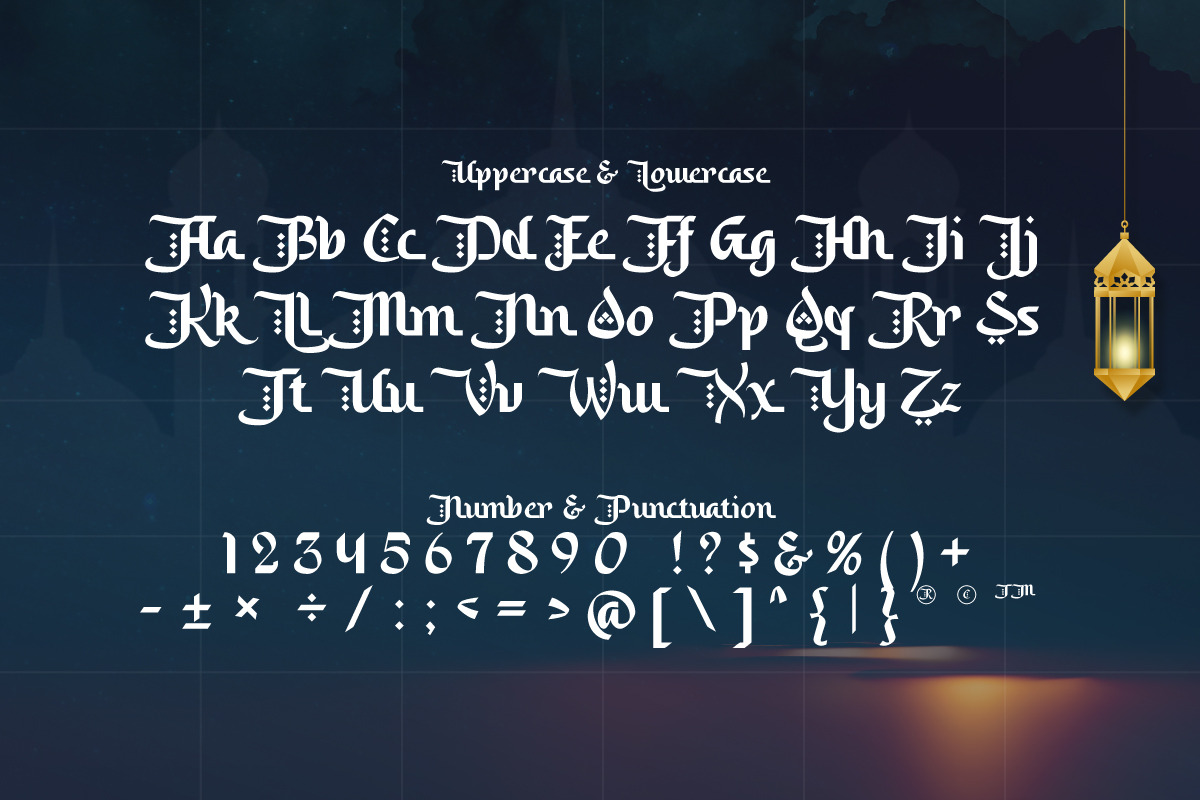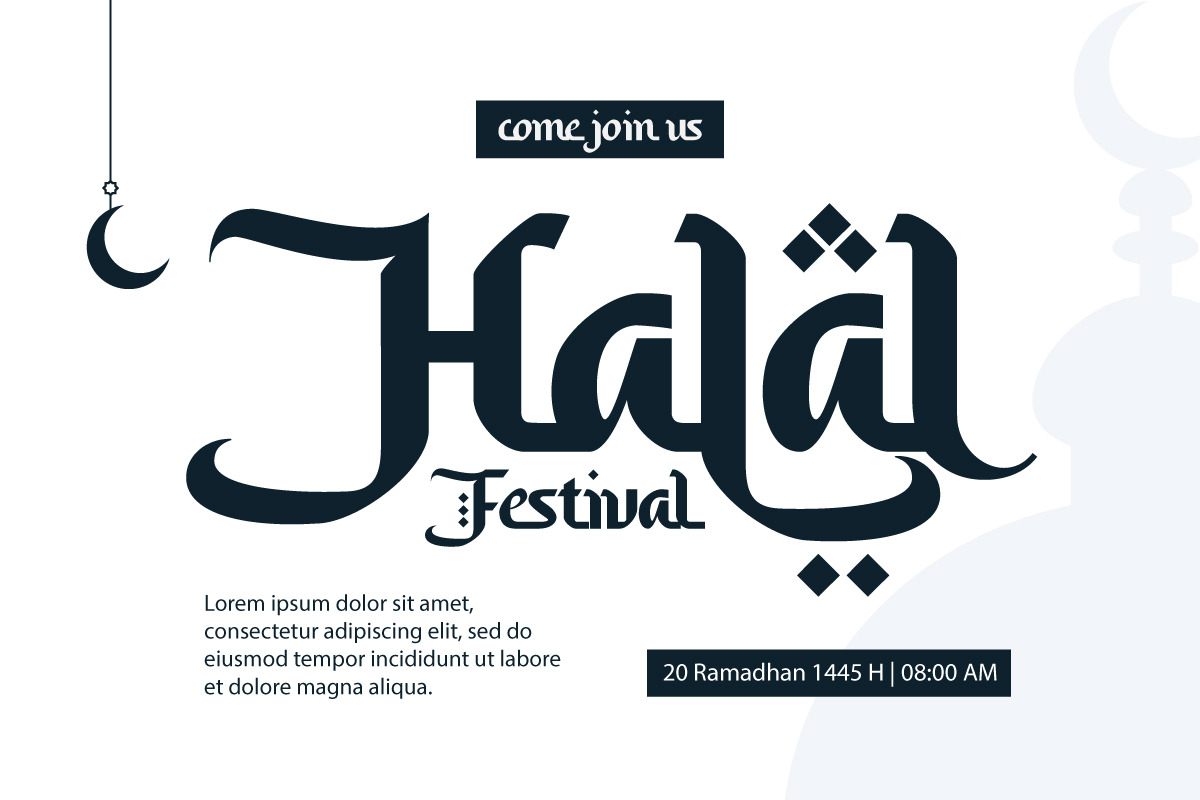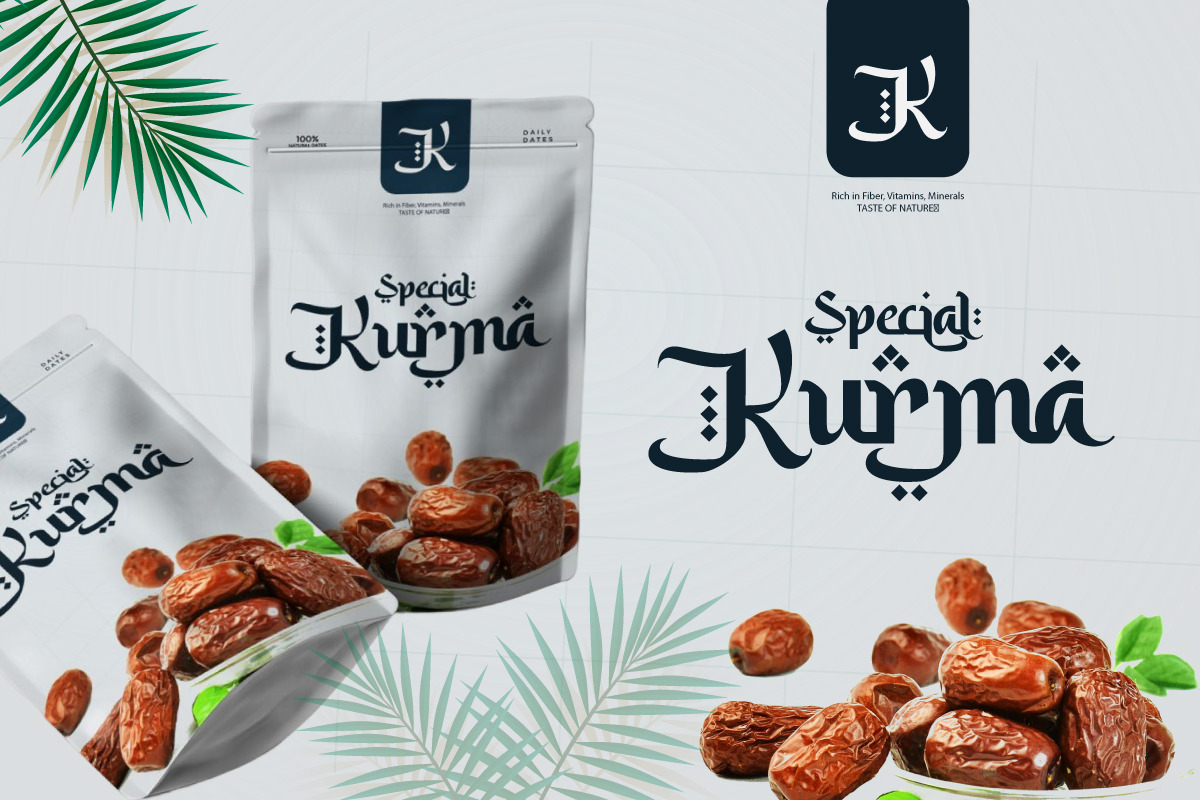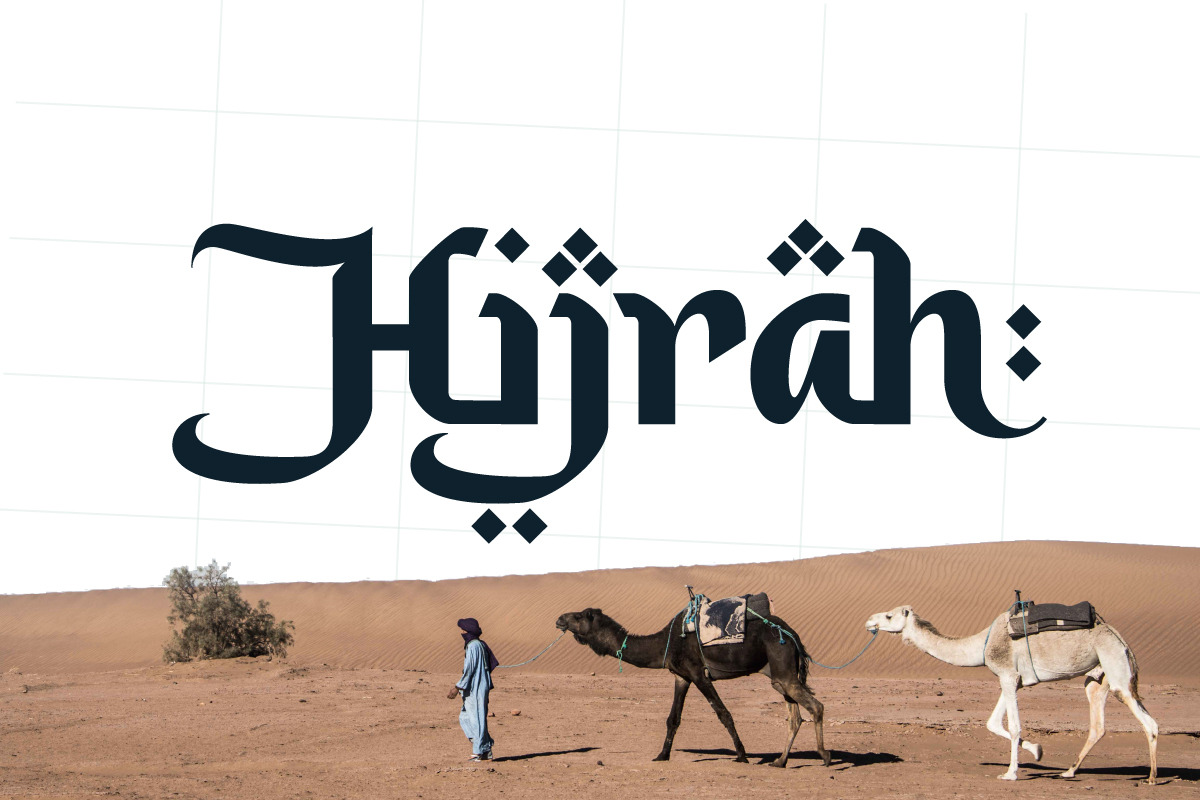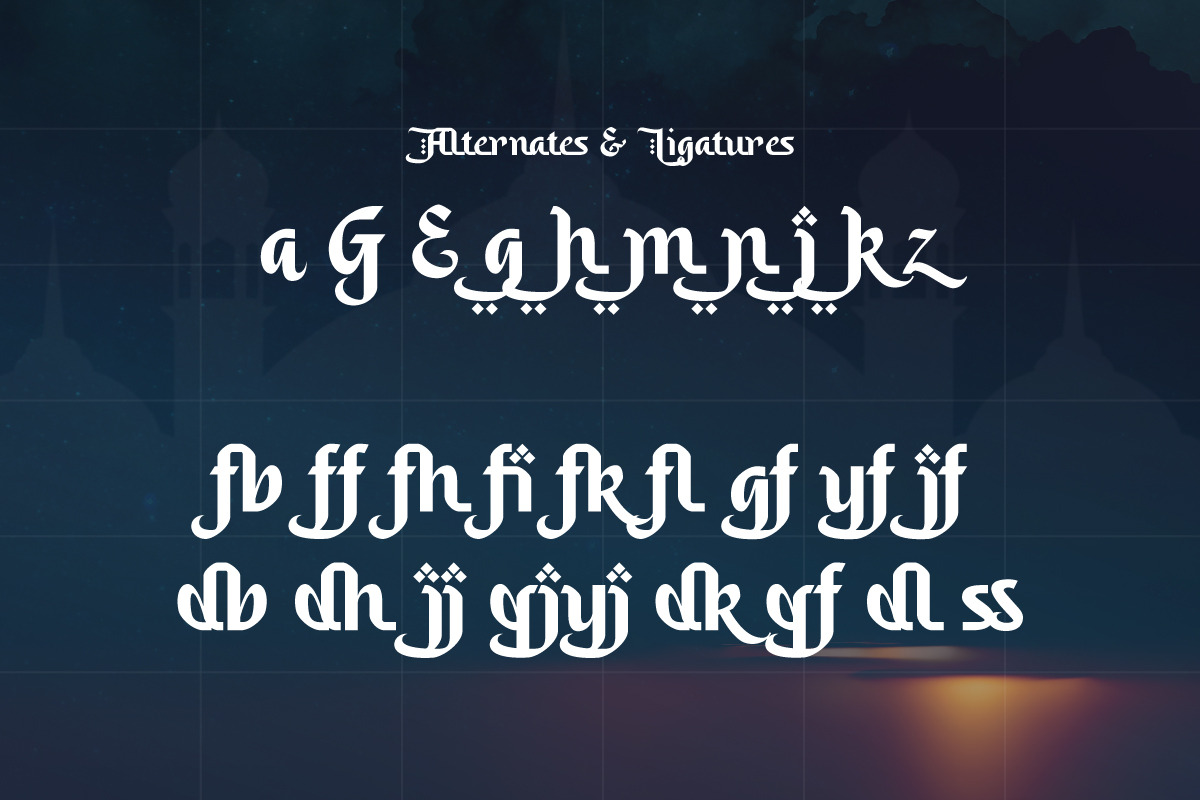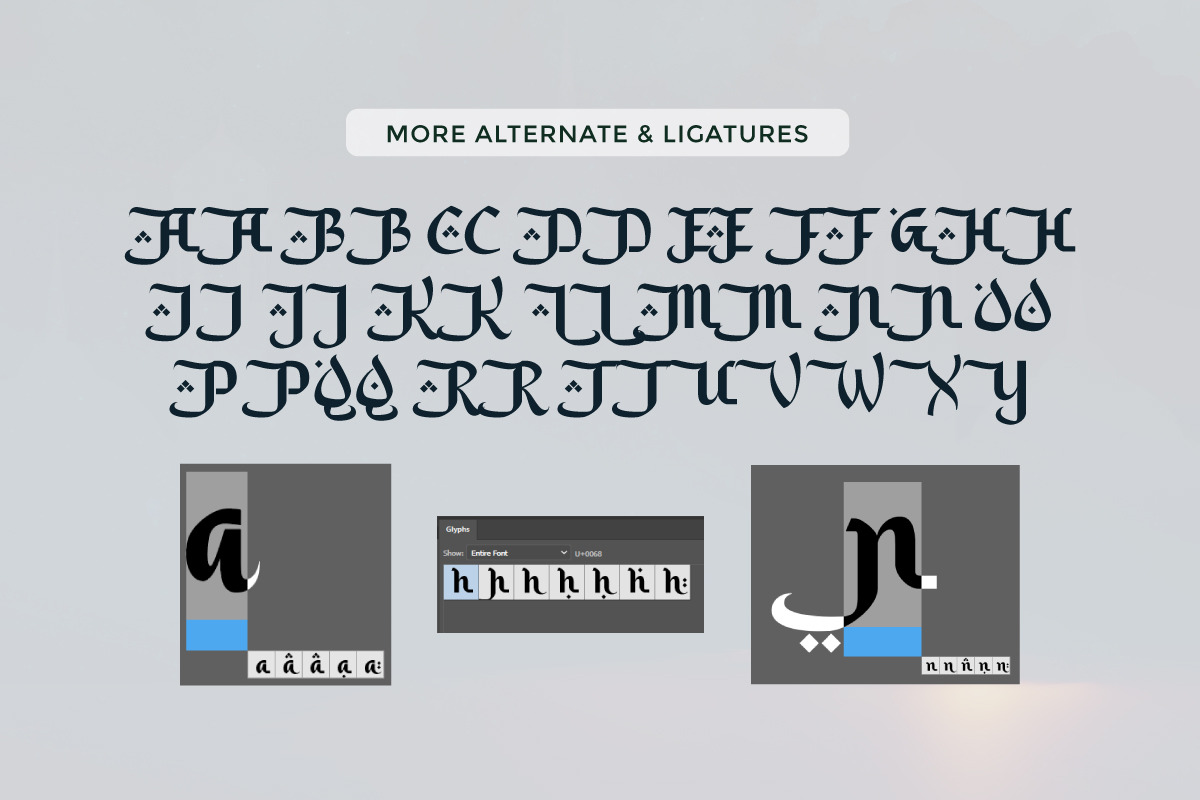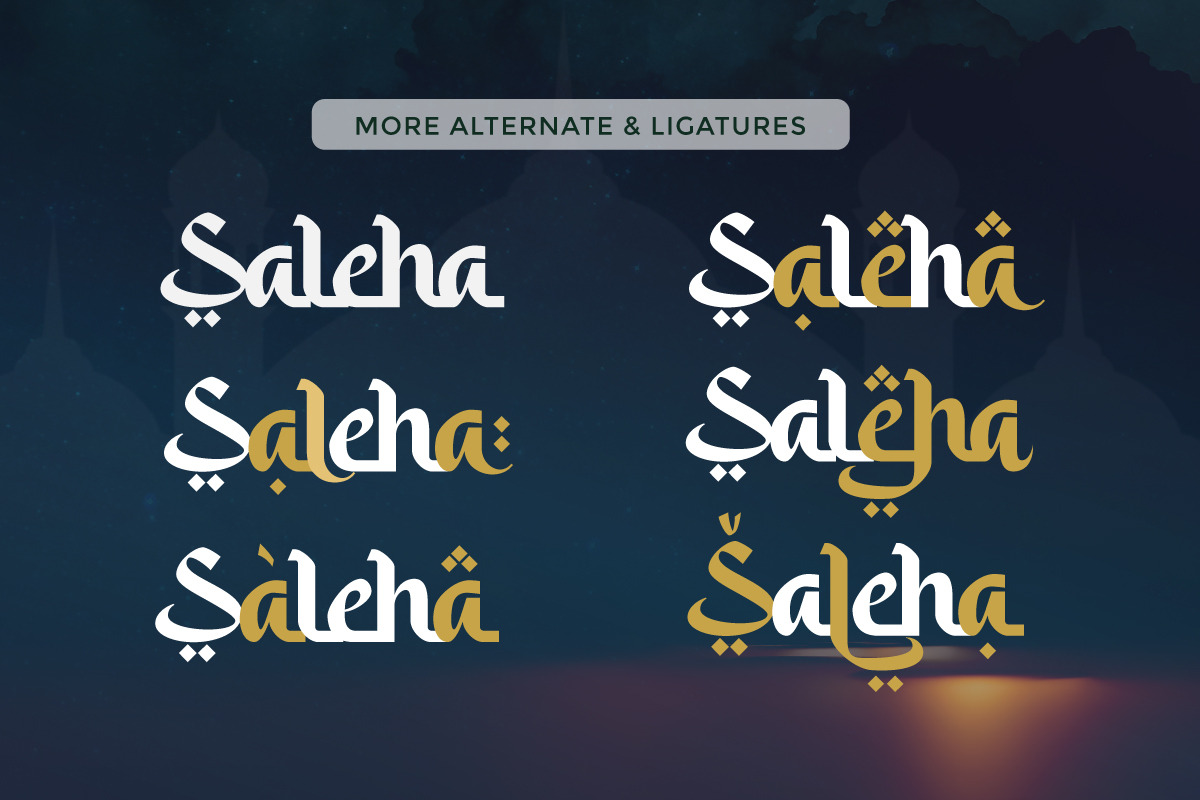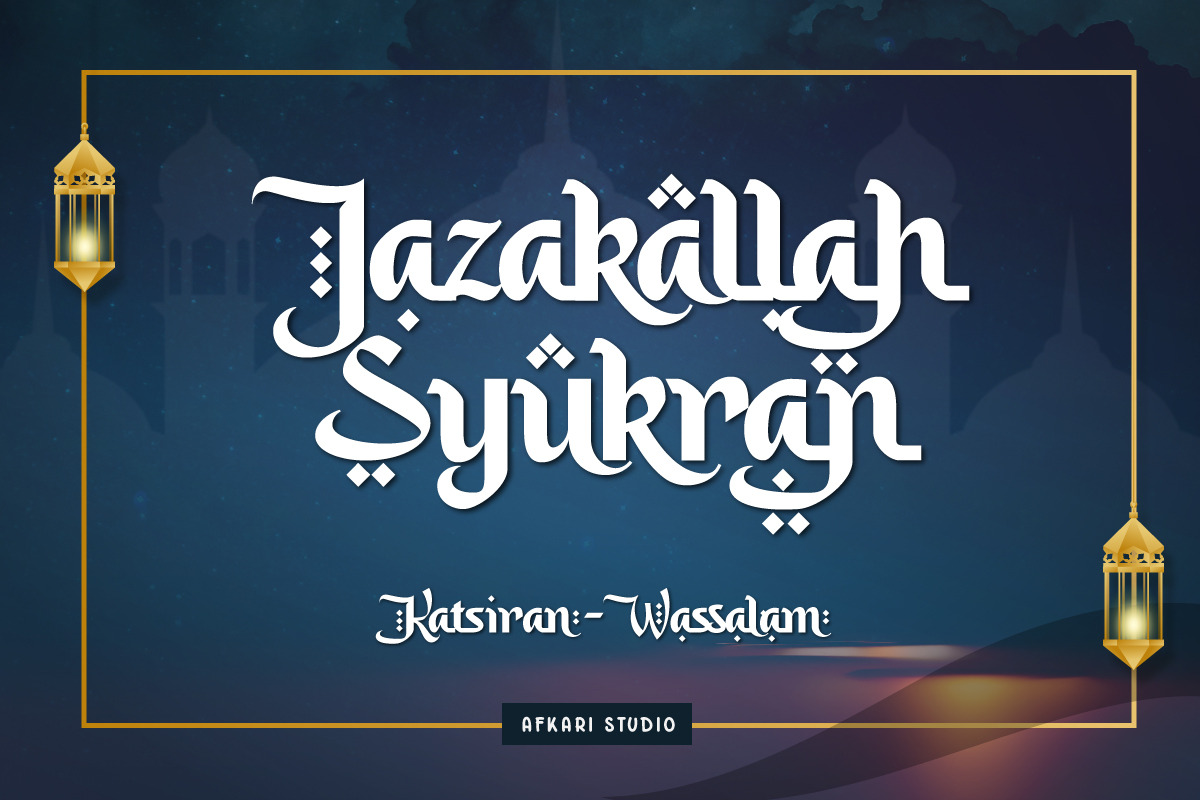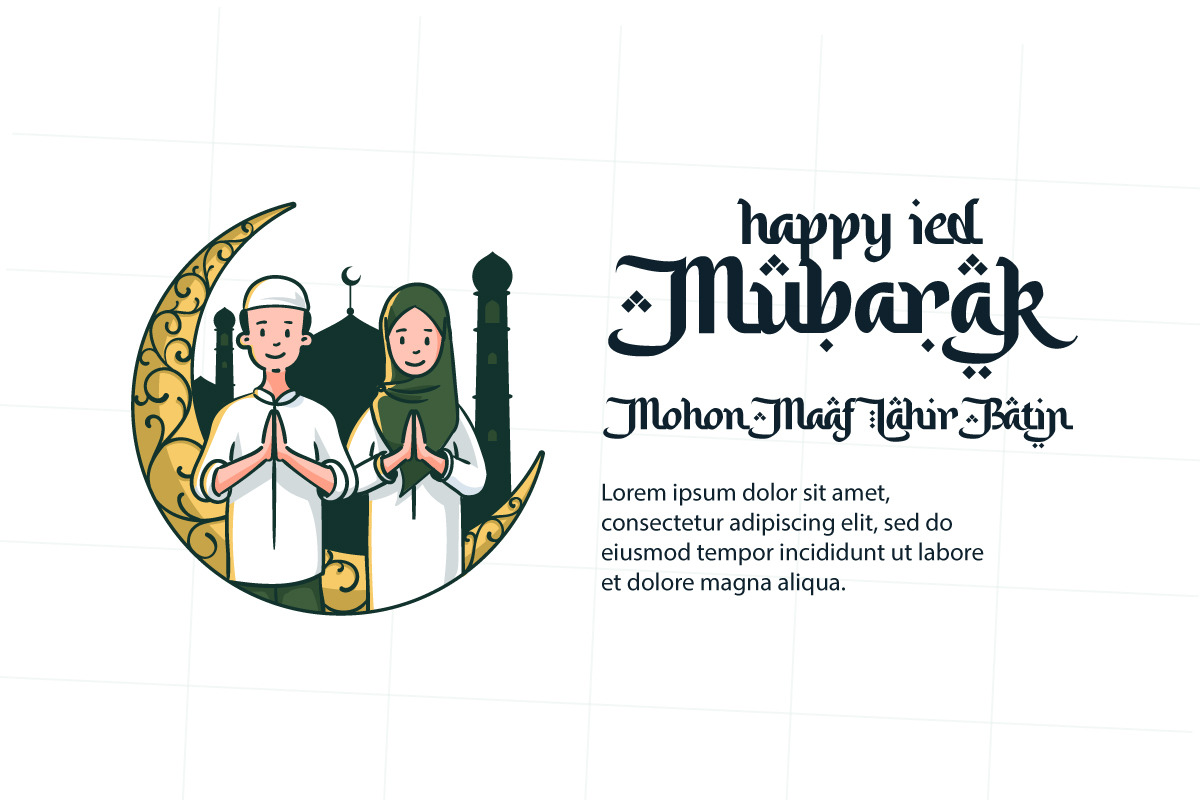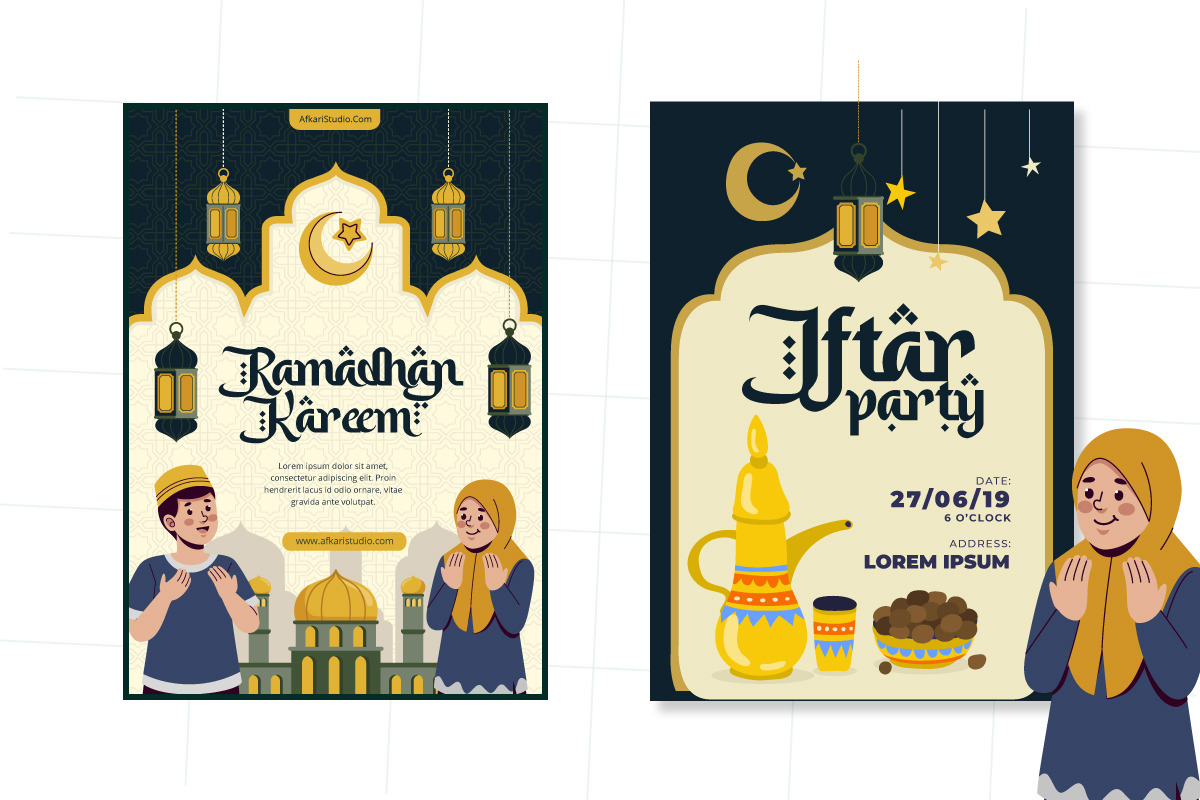
Saleha - An Arabic Style Typeface
NEW Ramadan and Islamic font, Saleha, is an Arabic-styled display typeface. This Islamic Ramadhan Arabic font is perfect for any graphic design related to the Islamic or Arabic style. You will get an Arabic feel to every text you type using this font. Made with Latin characters so that it can be read internationally which does not have to be able to read Arabic characters
This Islamic font is suitable for branding, product packaging, quotes, flyers, posters, logotype, apparel, T-shirt, Hoodie, book covers, movie title, advertising, and more.
- Uppercase, Lowercase, Number, and Punctuation
- Special Alternates and ligatures
- Mültîlíñgúãl Sùppört for; ä ö ü Ä Ö Ü ß ¿ ¡